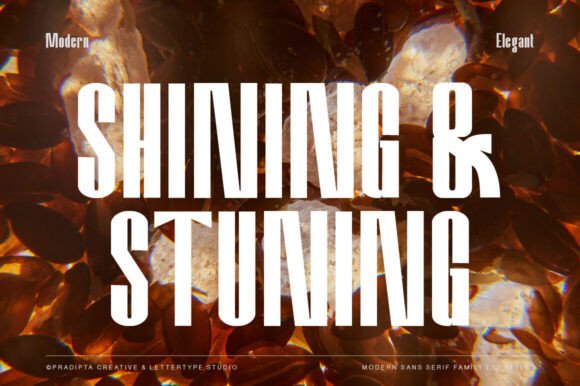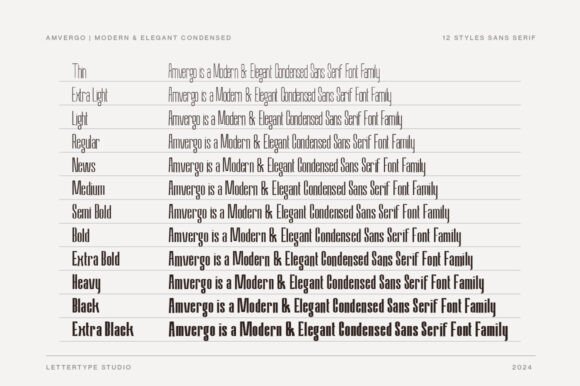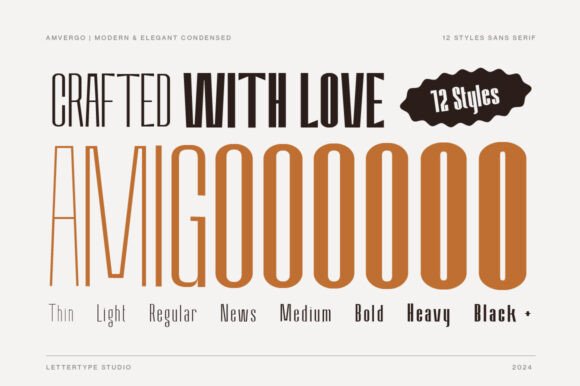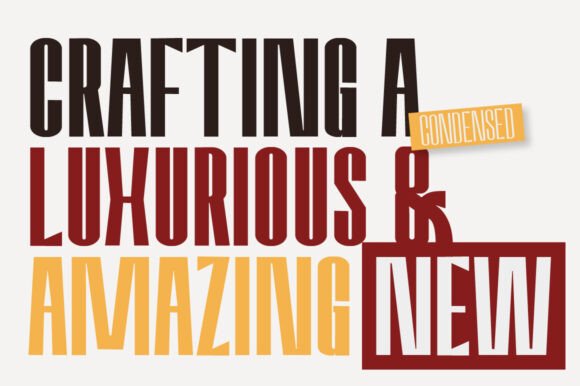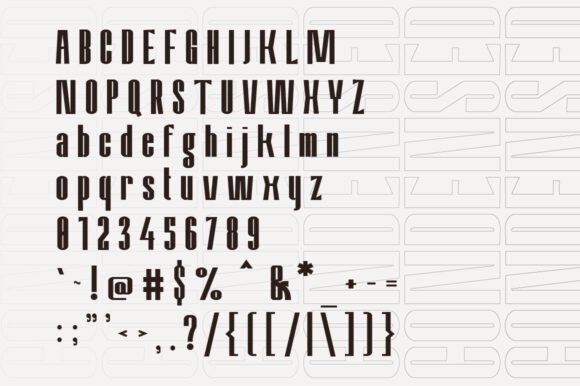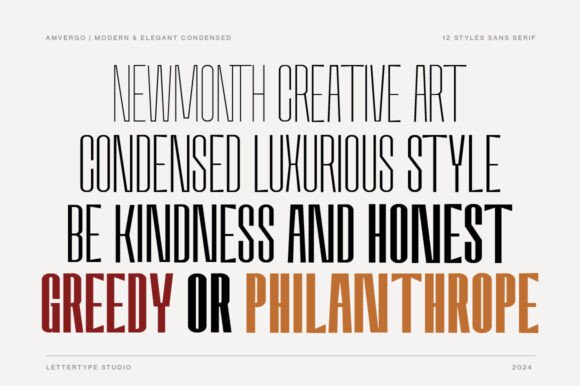
Introducing Amvergo Font: Elevate Your Designs with Elegance and Sophistication
In the world of typography, fonts play a crucial role in conveying the tone and aesthetic of a design. For designers and crafters looking to add a touch of elegance and sophistication to their work, Amvergo Font is an excellent choice. This modern, unique, and stunning condensed sans-serif font is perfect for elevating your designs with a professional look.
What Makes Amvergo Font Stand Out?
Amvergo Font boasts clean lines and condensed proportions, offering a stylish, bold, and contemporary aesthetic perfect for headlines. Its elegant and modern design makes it an ideal choice for designers looking to add a touch of sophistication to their work. Whether you’re working on a digital project or a print design, Amvergo Font is sure to impress.
Key Features of Amvergo Font
- Elegant and Modern Design: Amvergo Font features a unique and stunning condensed sans-serif design that’s perfect for modern designs.
- Multiple Styles: The Amvergo font family offers 12 styles, ranging from thin to extra black, giving you flexibility and versatility in your designs.
- Multilingual Support: With multilingual support, Amvergo Font is perfect for designs that require text in multiple languages.
- Clean Lines and Condensed Proportions: The font’s clean lines and condensed proportions make it perfect for headlines and titles.
- Works in Large and Small Sizes: Amvergo Font works beautifully in both large and small sizes, making it perfect for a variety of design applications.
Amvergo Font is perfect for designers and crafters looking to add a touch of elegance and sophistication to their work. Whether you’re working on a:
- Digital Project: Use Amvergo Font to create stunning digital designs, such as website headers, social media graphics, and more.
- Print Design: Amvergo Font is perfect for print designs, such as brochures, flyers, posters, and more.
- Branding Project: Use Amvergo Font to create a unique and memorable brand identity.
Why Choose Amvergo Font?
With so many fonts available, why choose Amvergo Font? Here are just a few reasons:
- Unique and Modern Design: Amvergo Font offers a unique and modern design that’s sure to stand out in any design.
- Flexibility and Versatility: With 12 styles and multilingual support, Amvergo Font is perfect for a variety of design applications.
- Elegant and Sophisticated: Amvergo Font adds a touch of elegance and sophistication to any design.
In conclusion, Amvergo Font is an excellent choice for designers and crafters looking to add a touch of elegance and sophistication to their work. With its unique and modern design, multiple styles, and multilingual support, Amvergo Font is perfect for a variety of design applications. Whether you’re working on a digital project, print design, or branding project, Amvergo Font is sure to elevate your designs with a professional look.